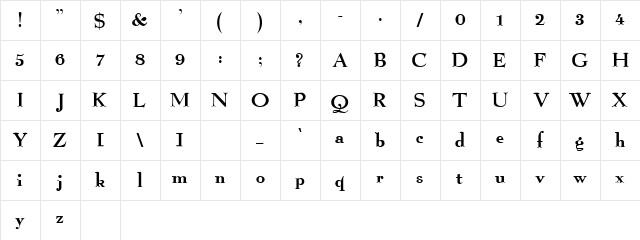
Xebex Normal
Design Context for Xebex
Xebex is a composed and adaptable typeface that performs quietly and consistently across a wide range of design contexts.